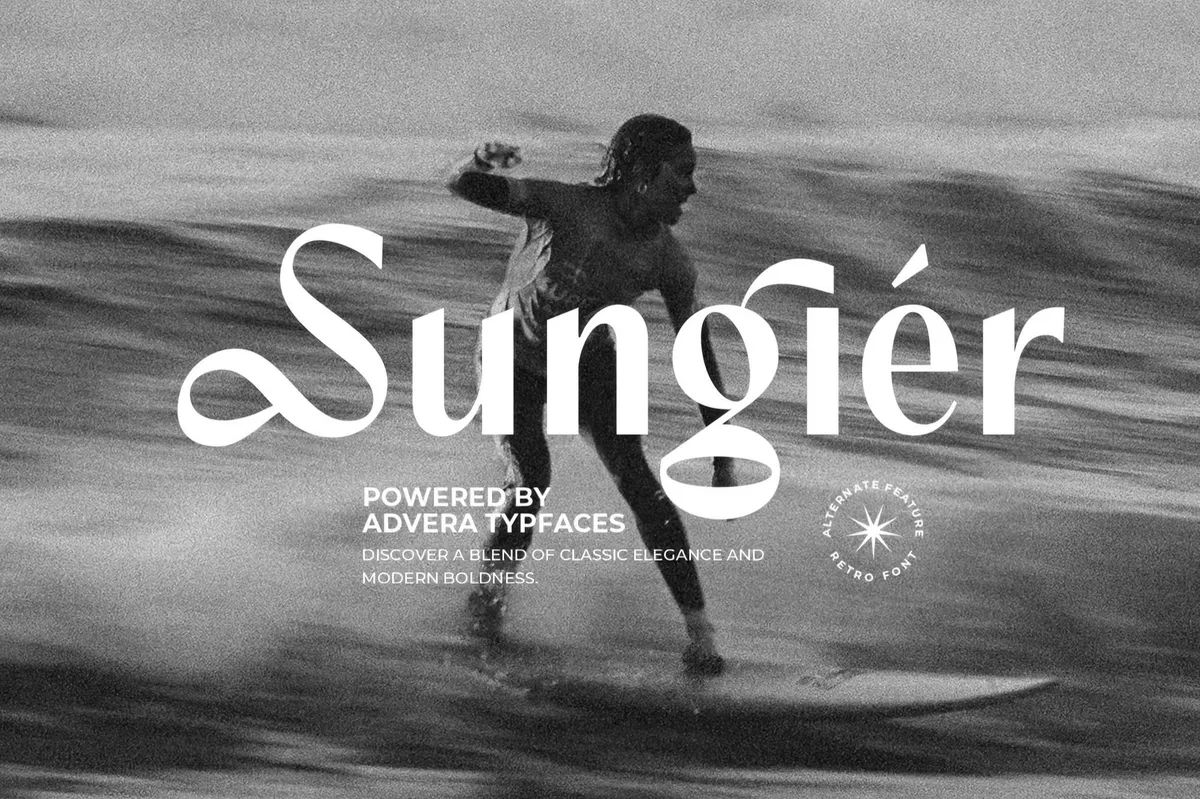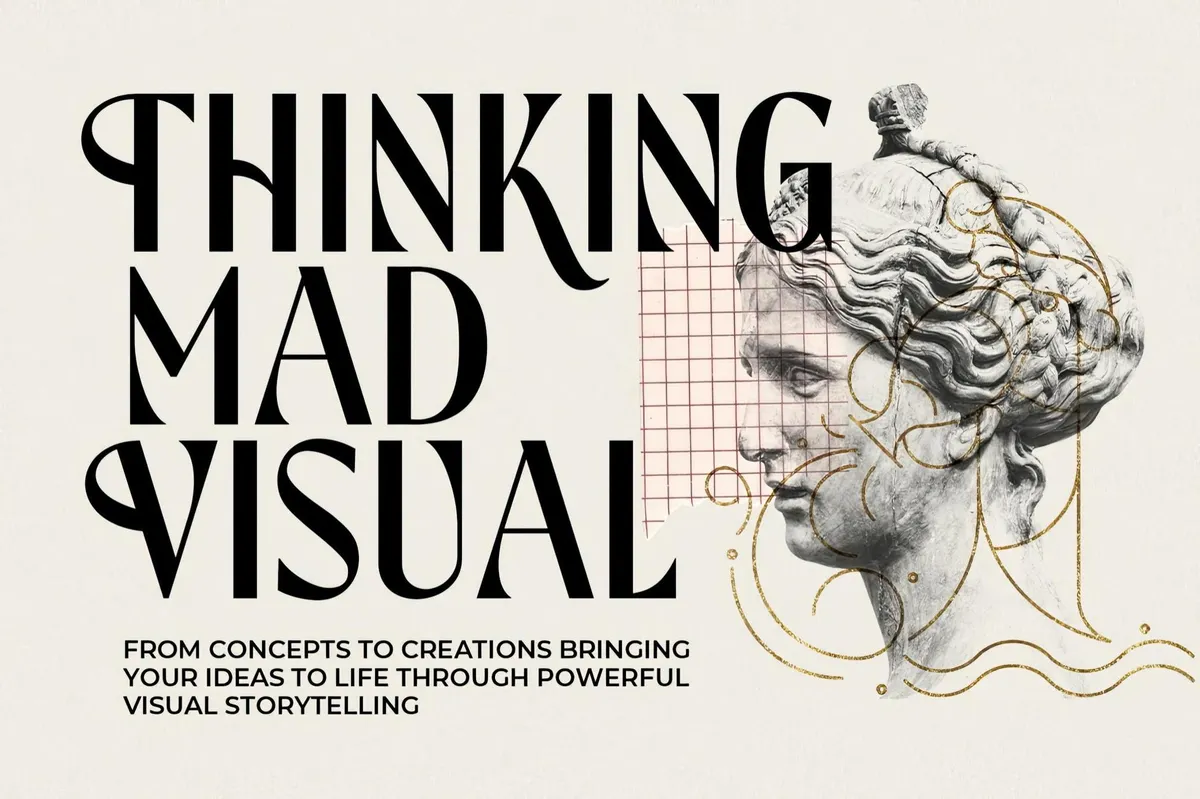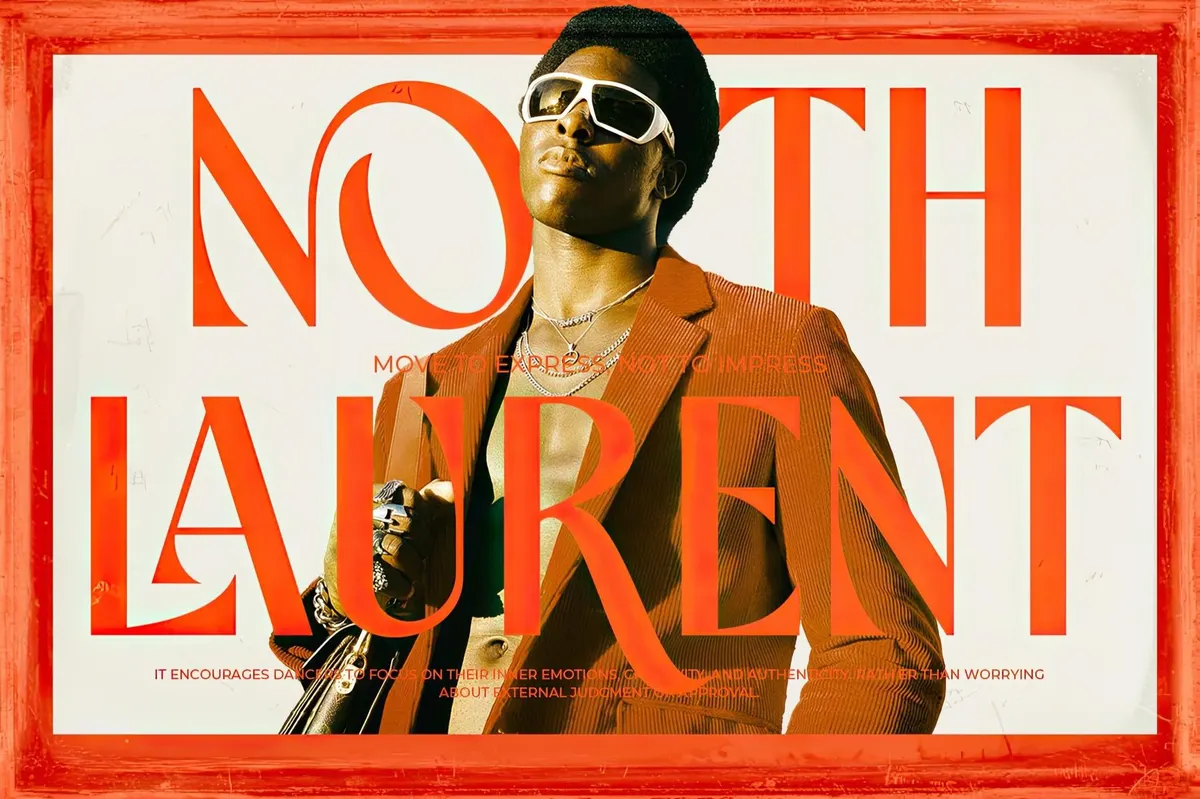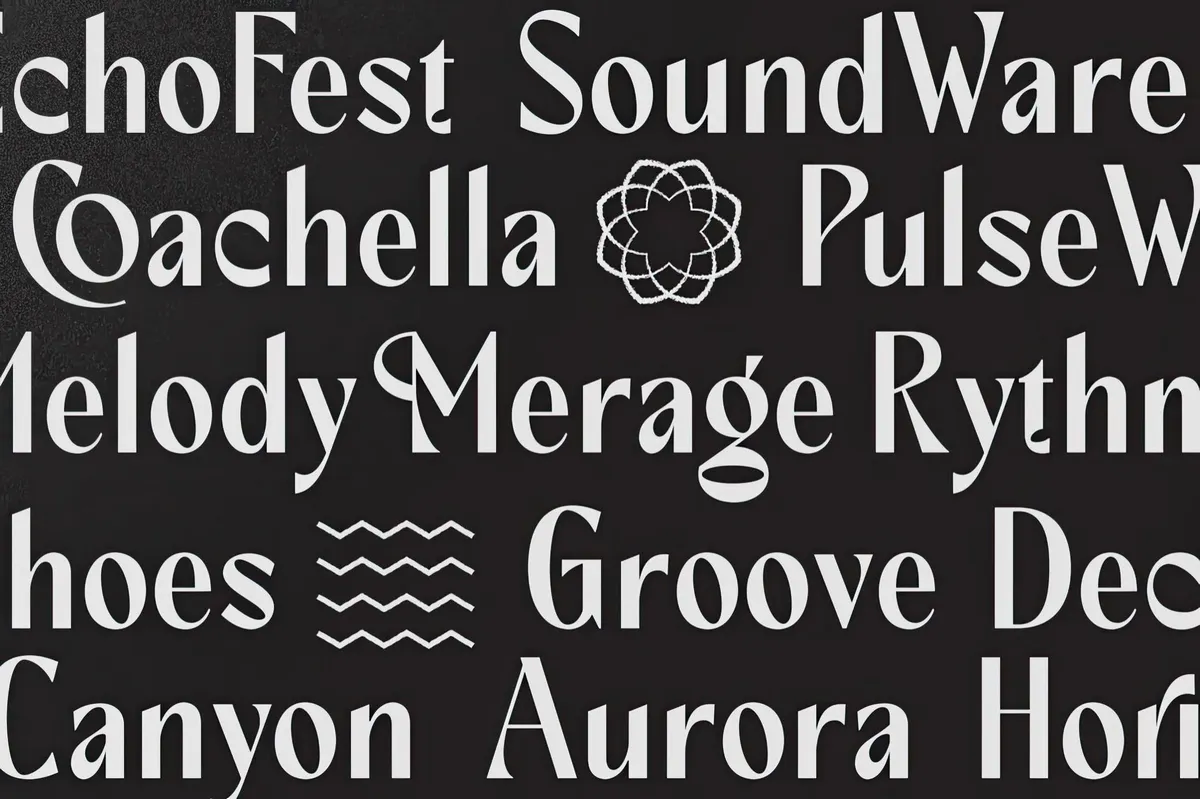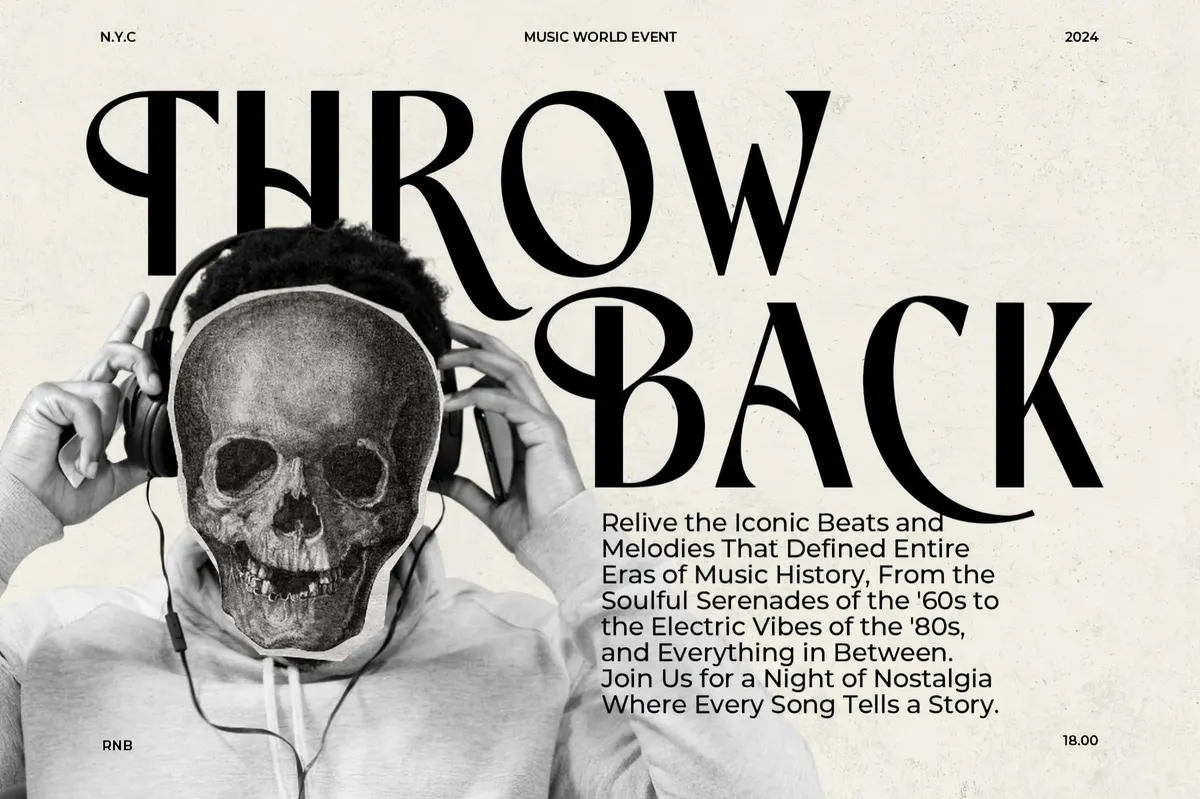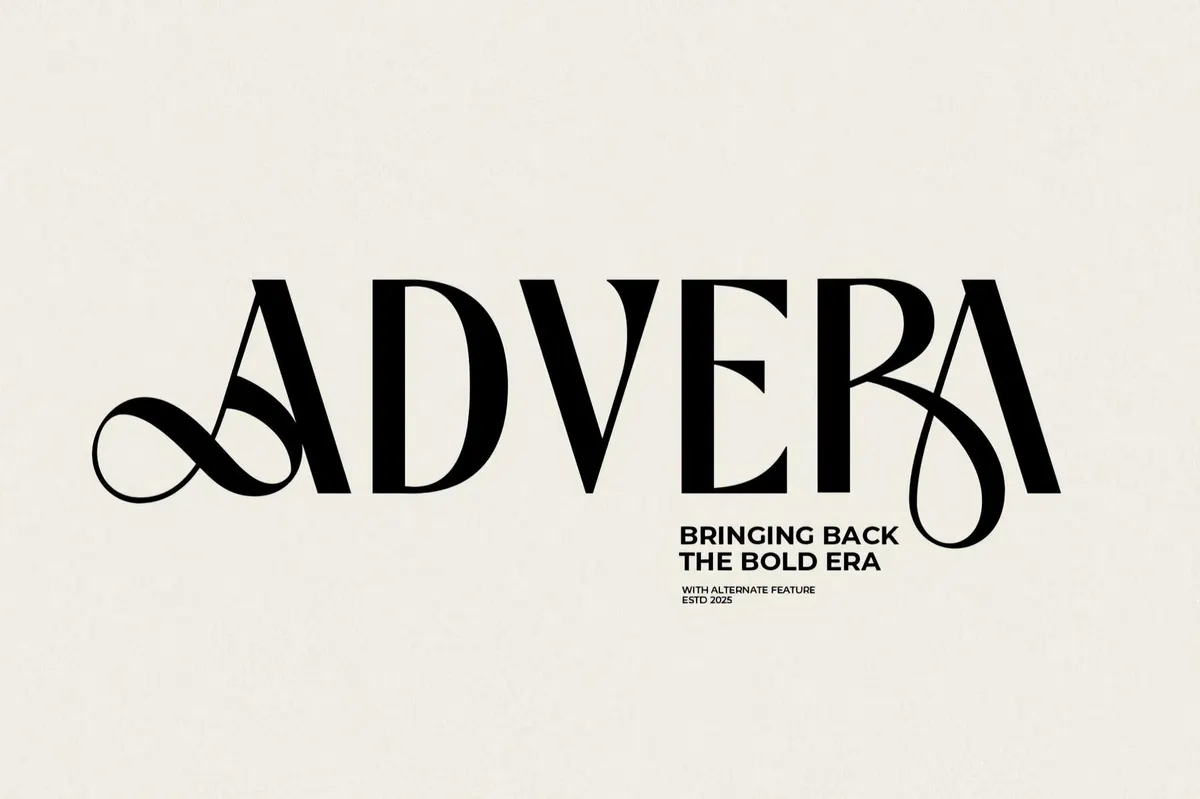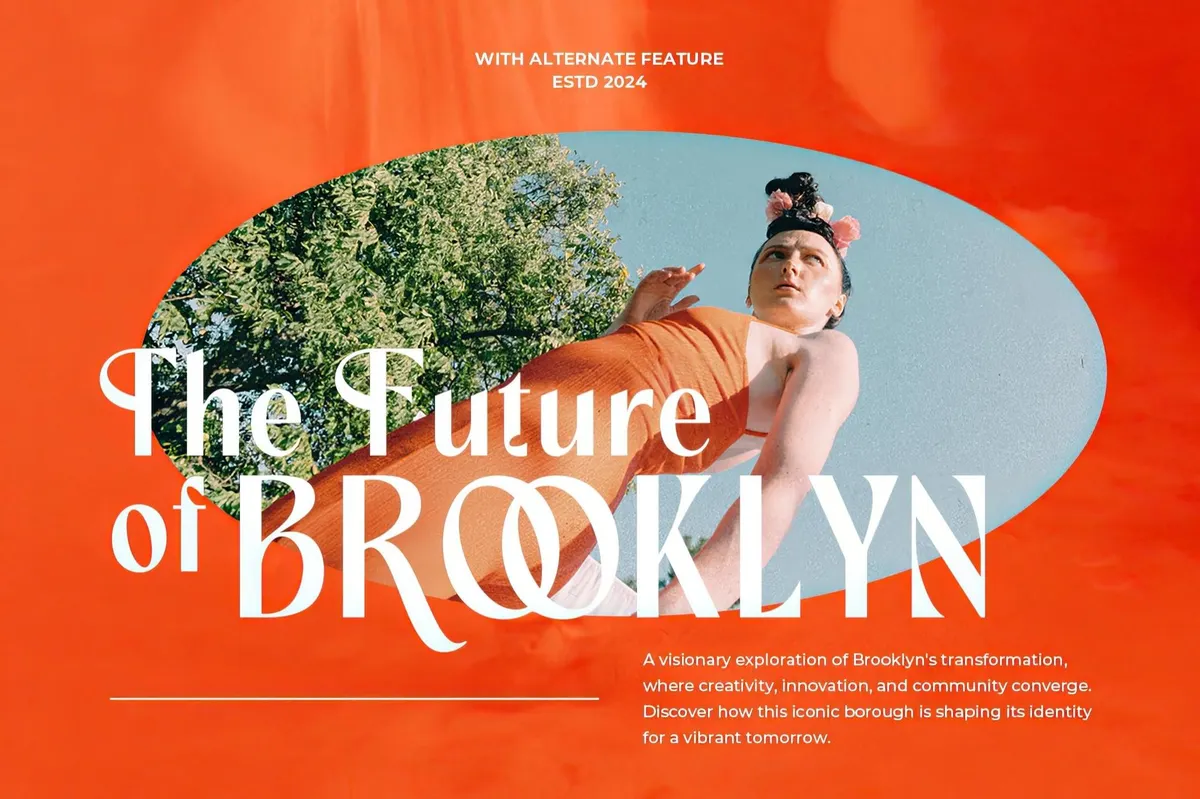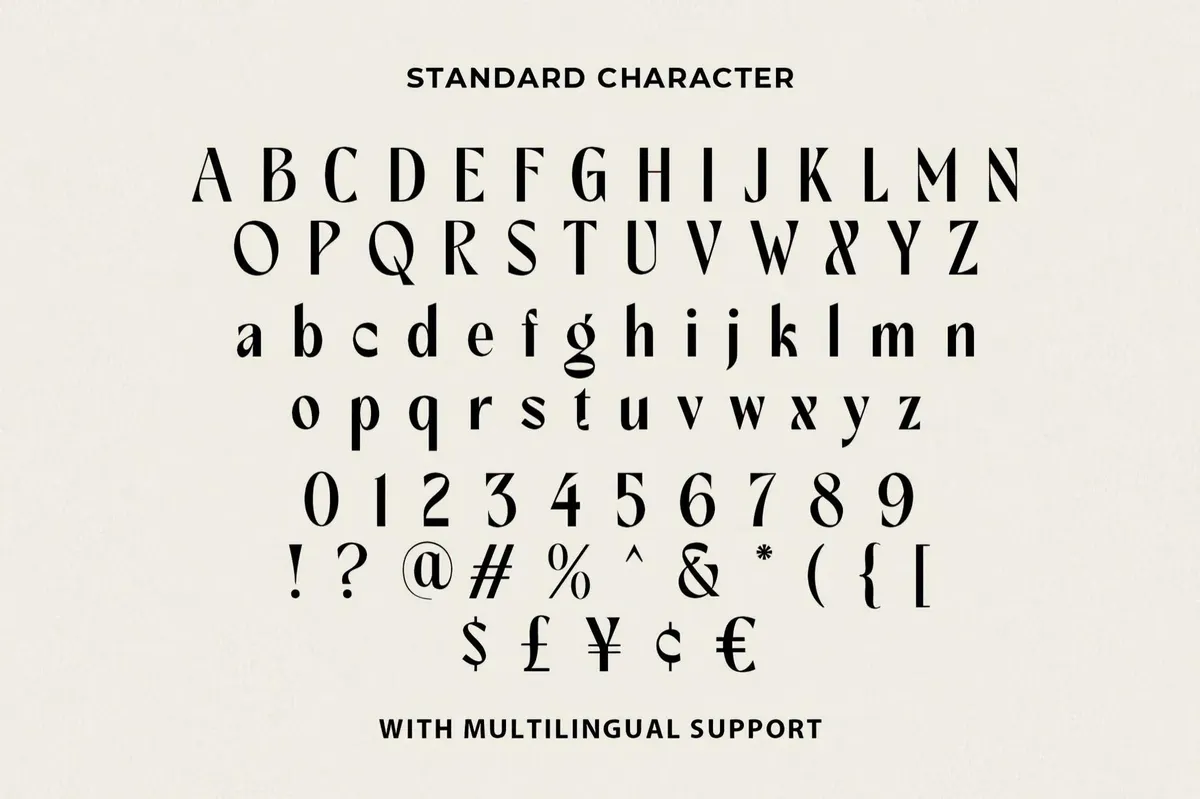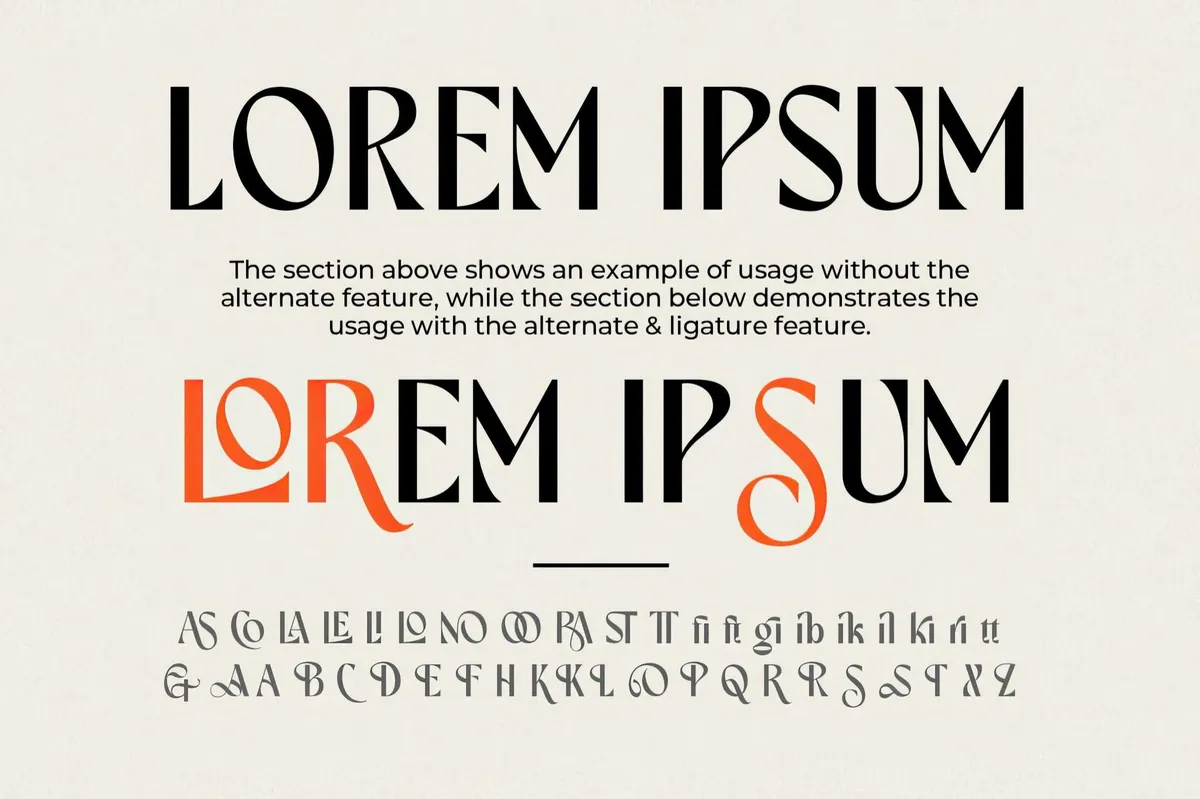
Advera — Bold Display Font
Advera
If Yves Saint Laurent and Zaha Hadid ever co-designed a typeface, it might've looked like Advera. This font is theatrical, and with its high-fashion audacity and razor-sharp letterforms, it's a star of every entrance. The sweeping alternates and stylized ligatures flirt with the maximalism of 70s fashion ads, the serif-free coolness of 90s design bibles, and a touch of Old Hollywood's flair for the dramatic. Whether branding a luxury label, designing a moody gallery invite, or crafting a logo with enough attitude to headline its perfume launch, this font rises to the occasion. And with multilingual support, it speaks fluent chic in every language.